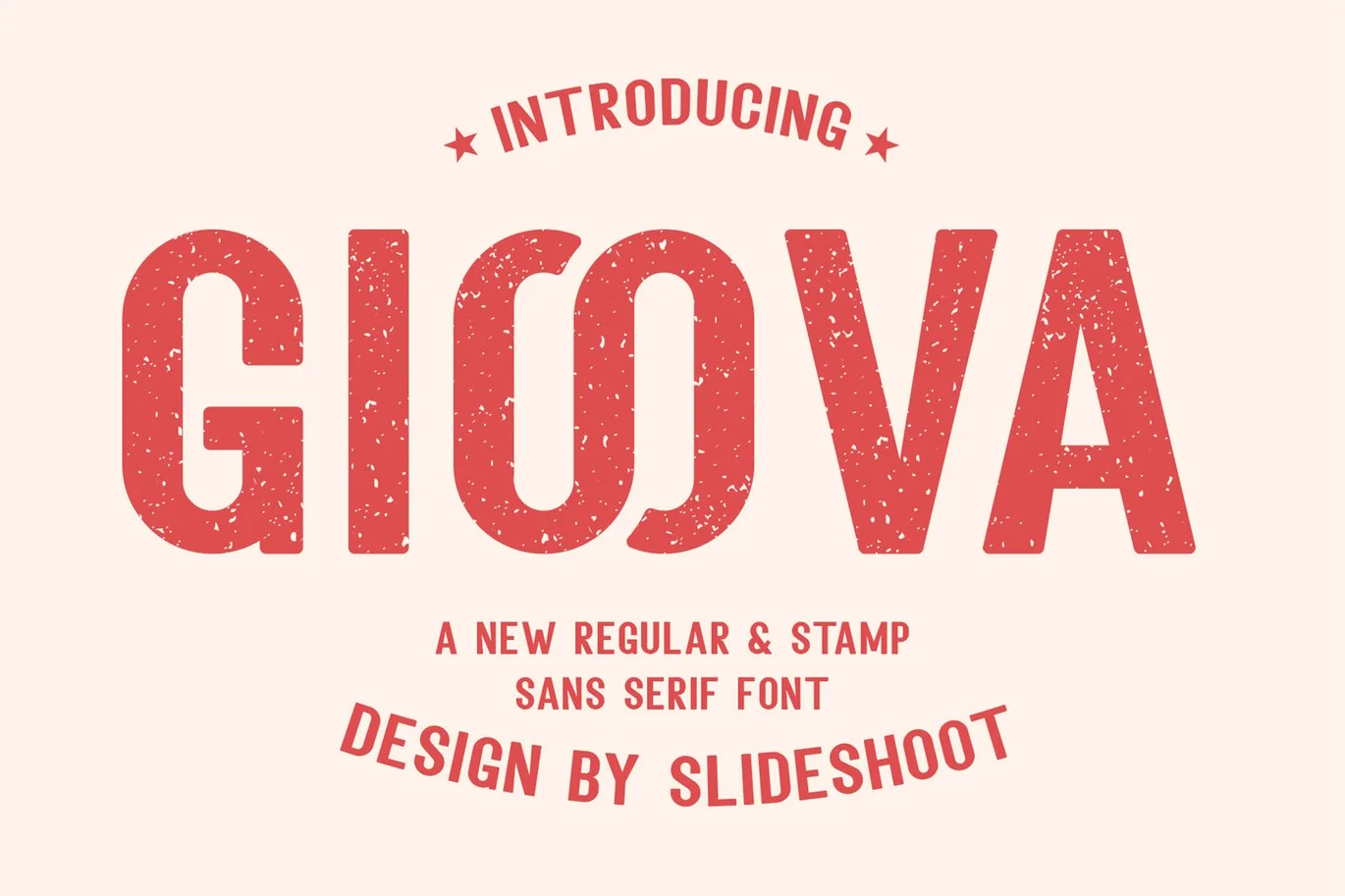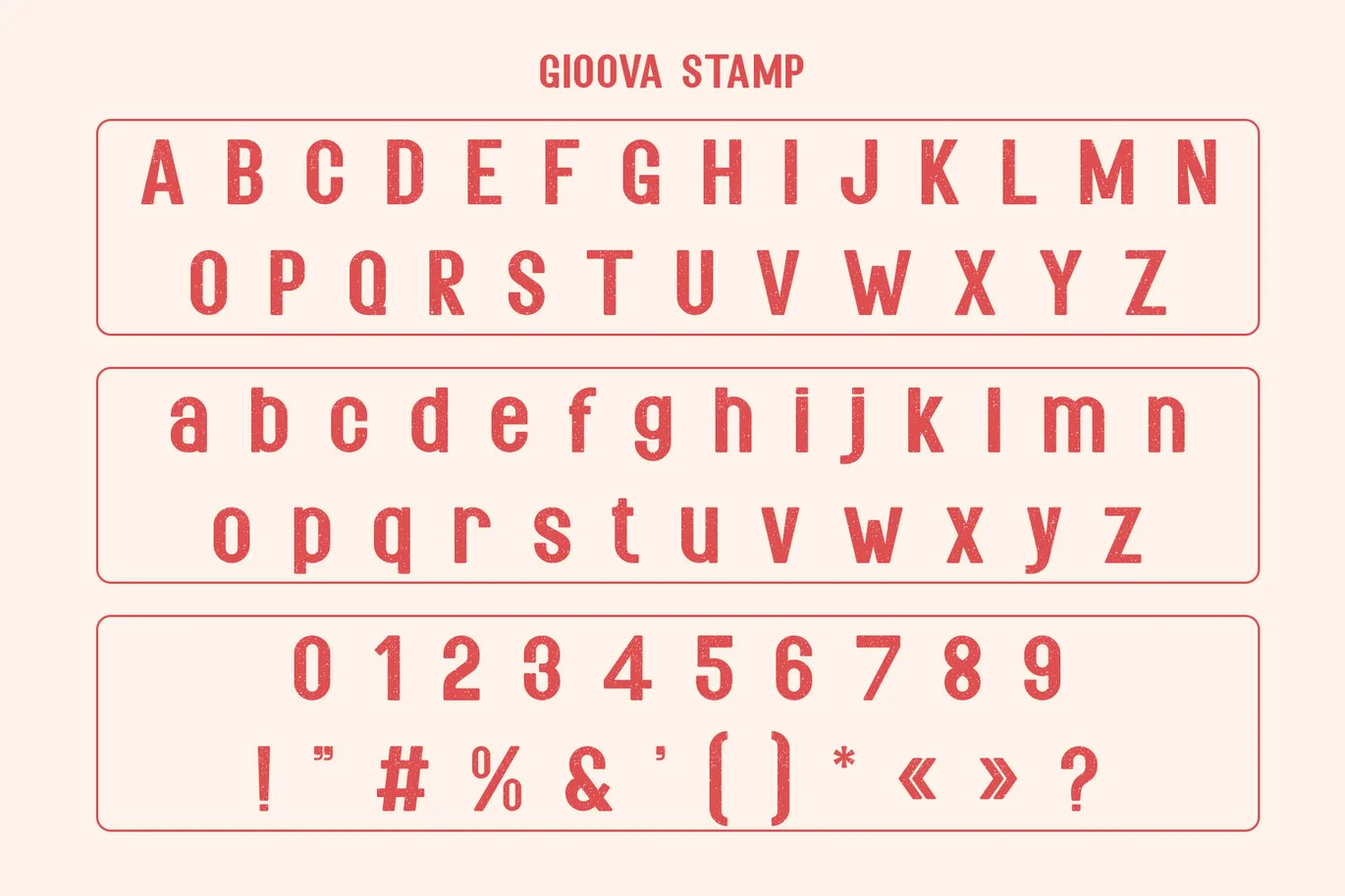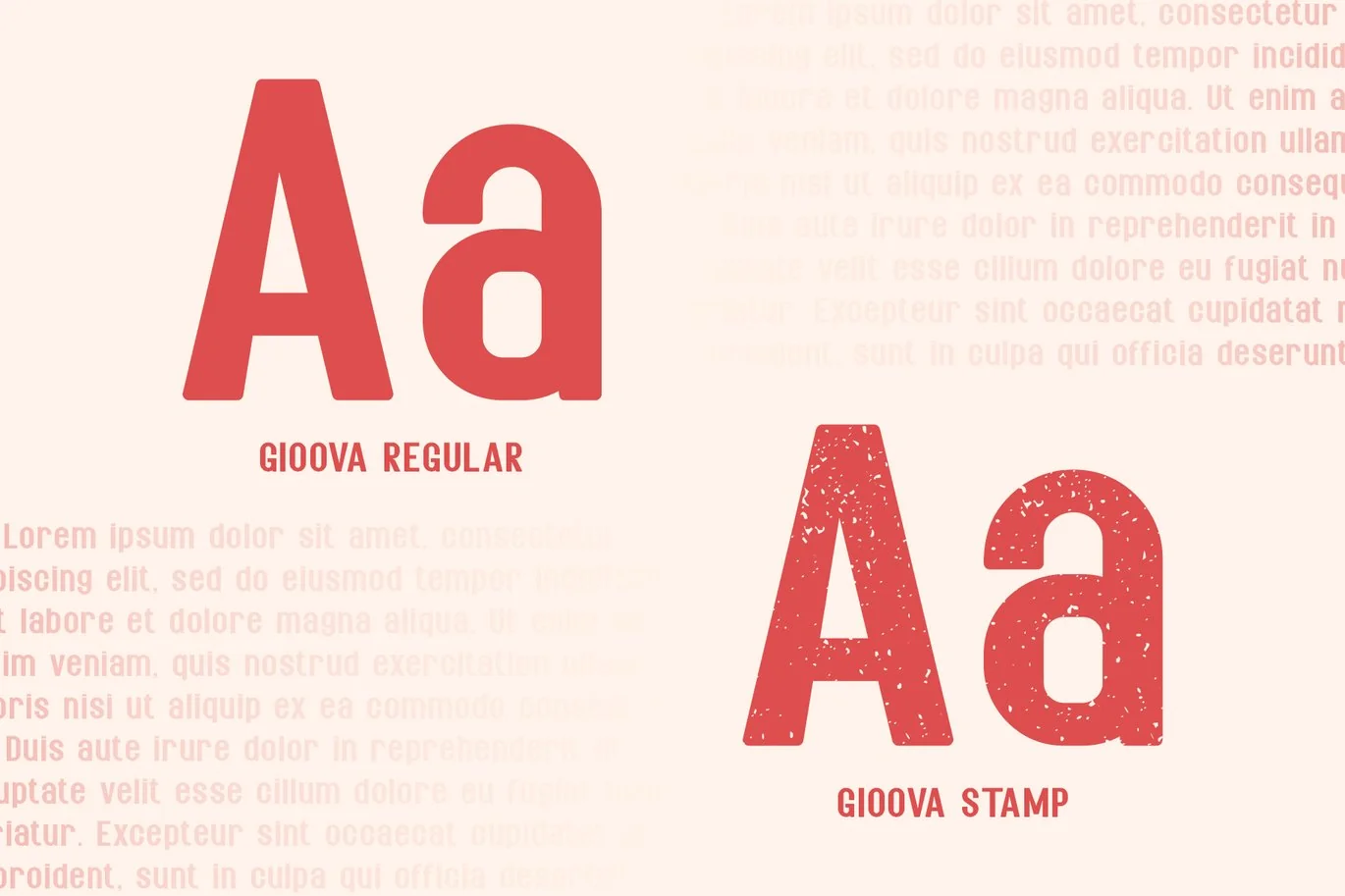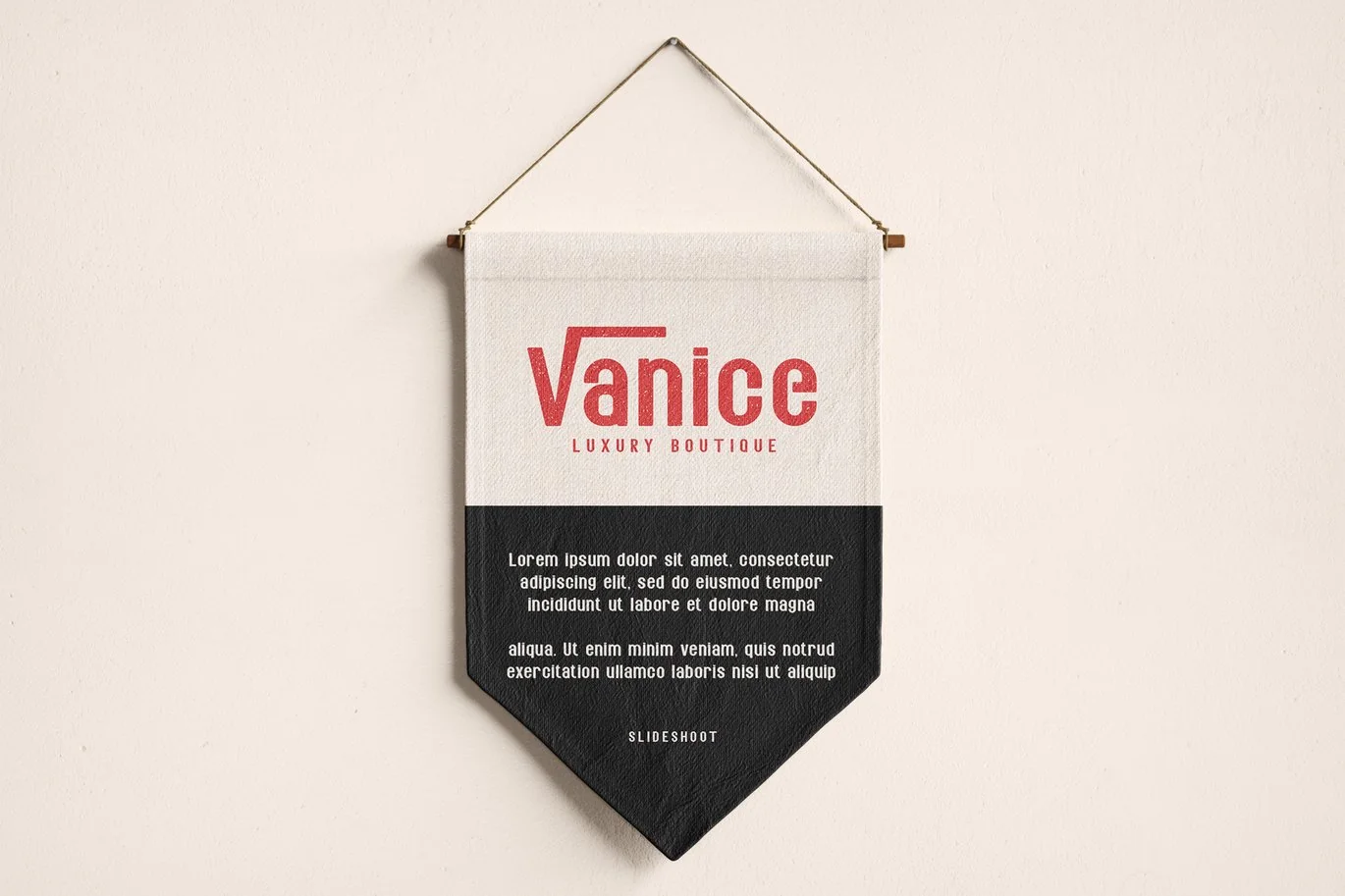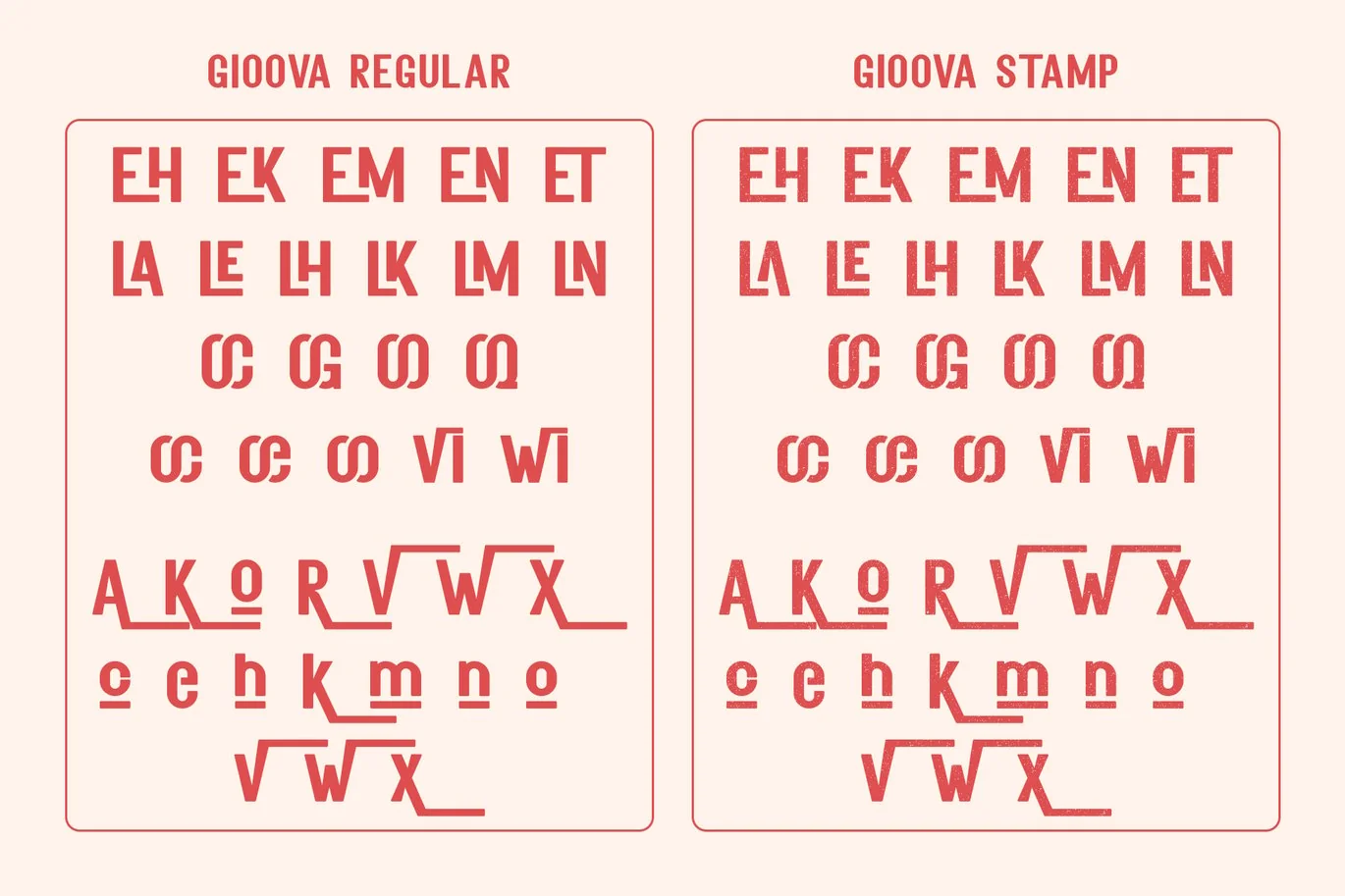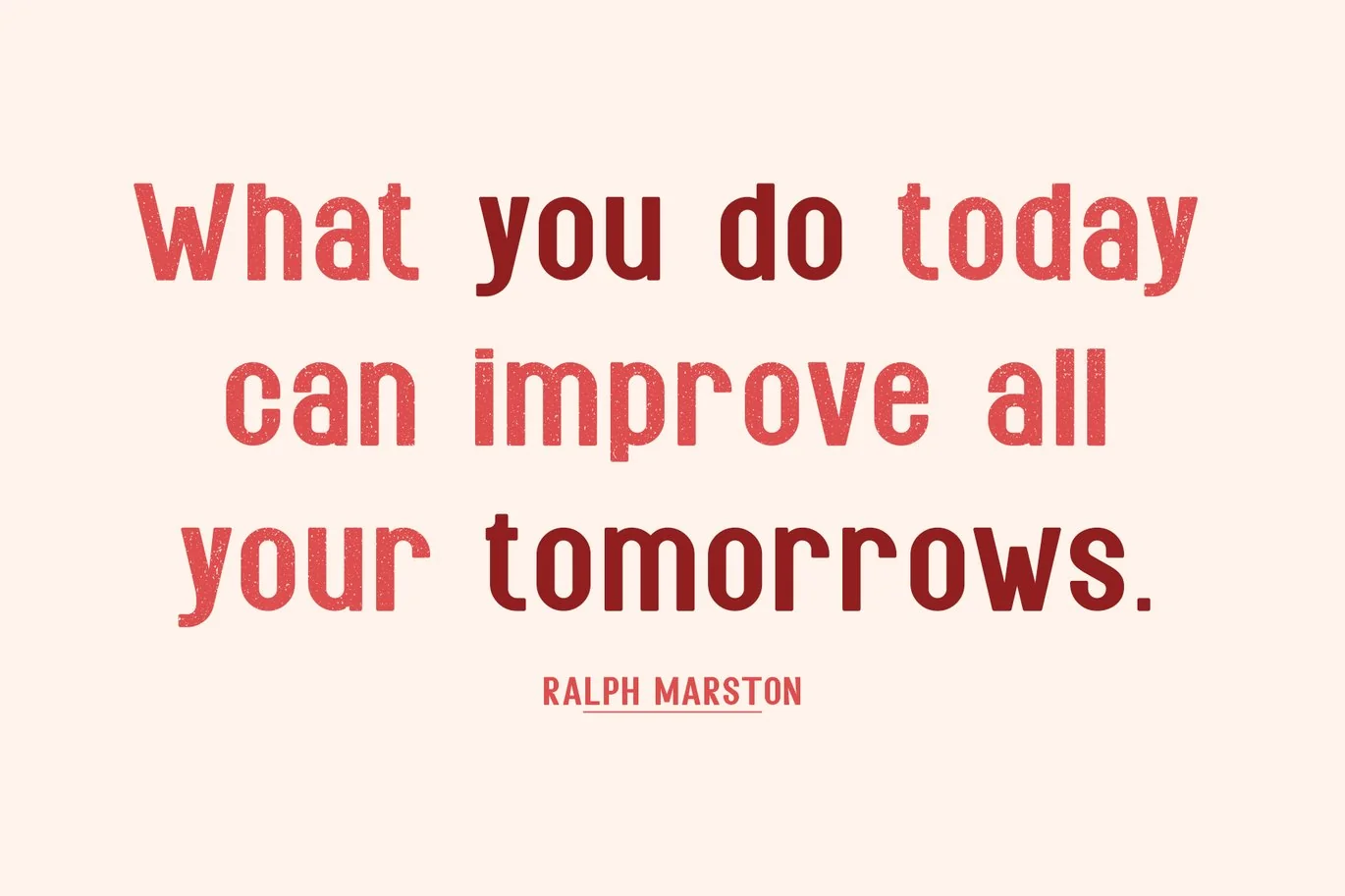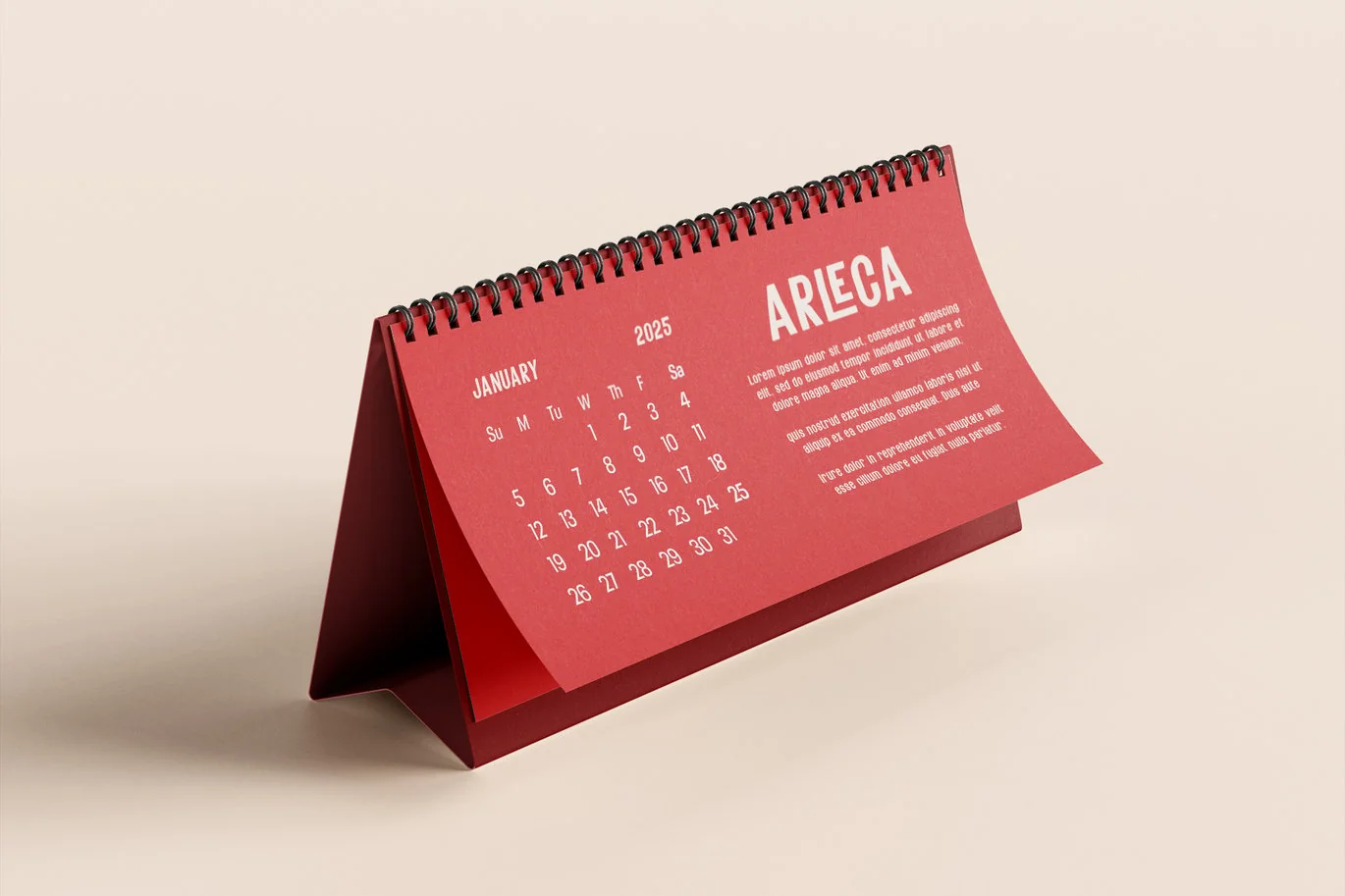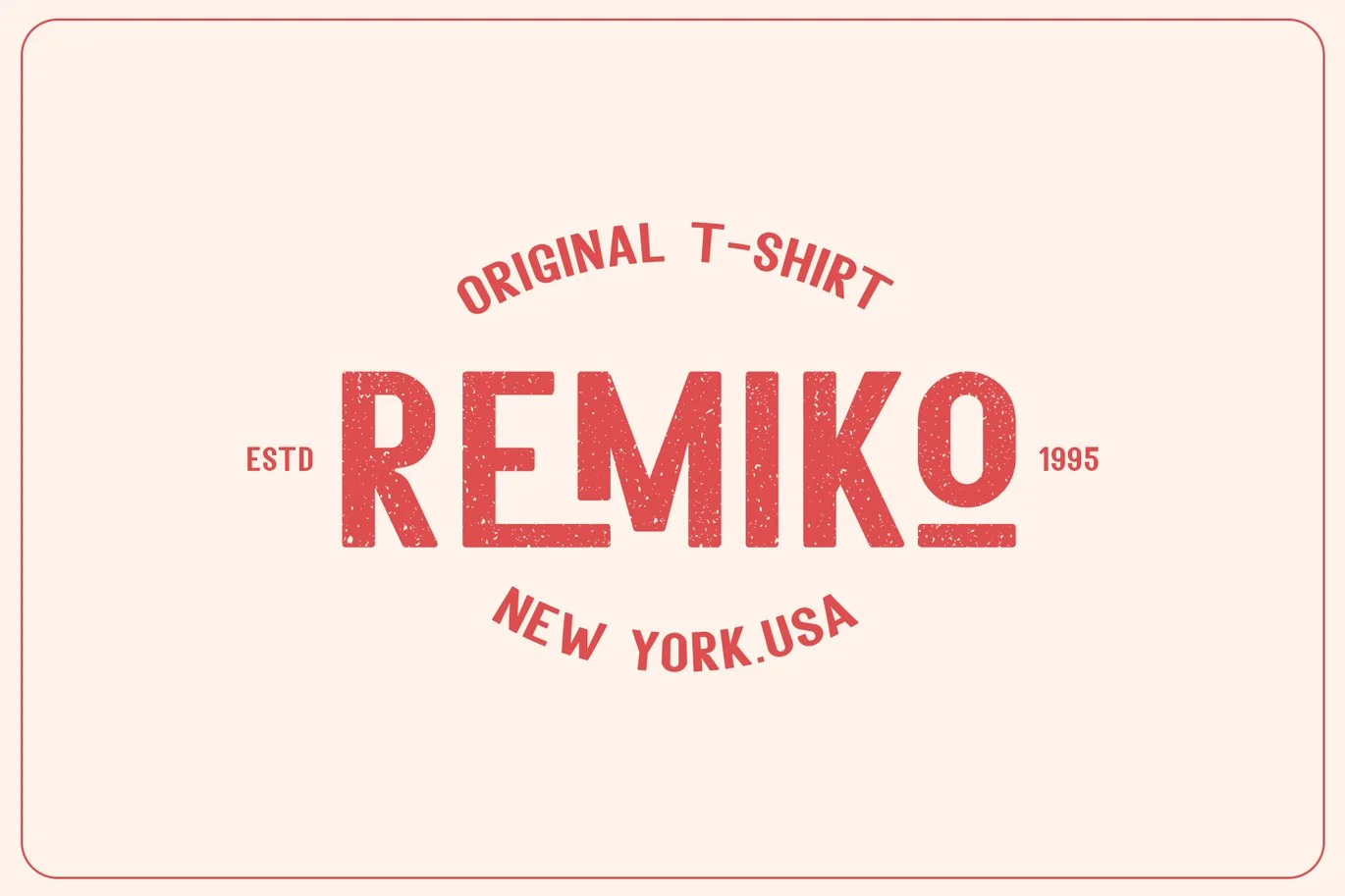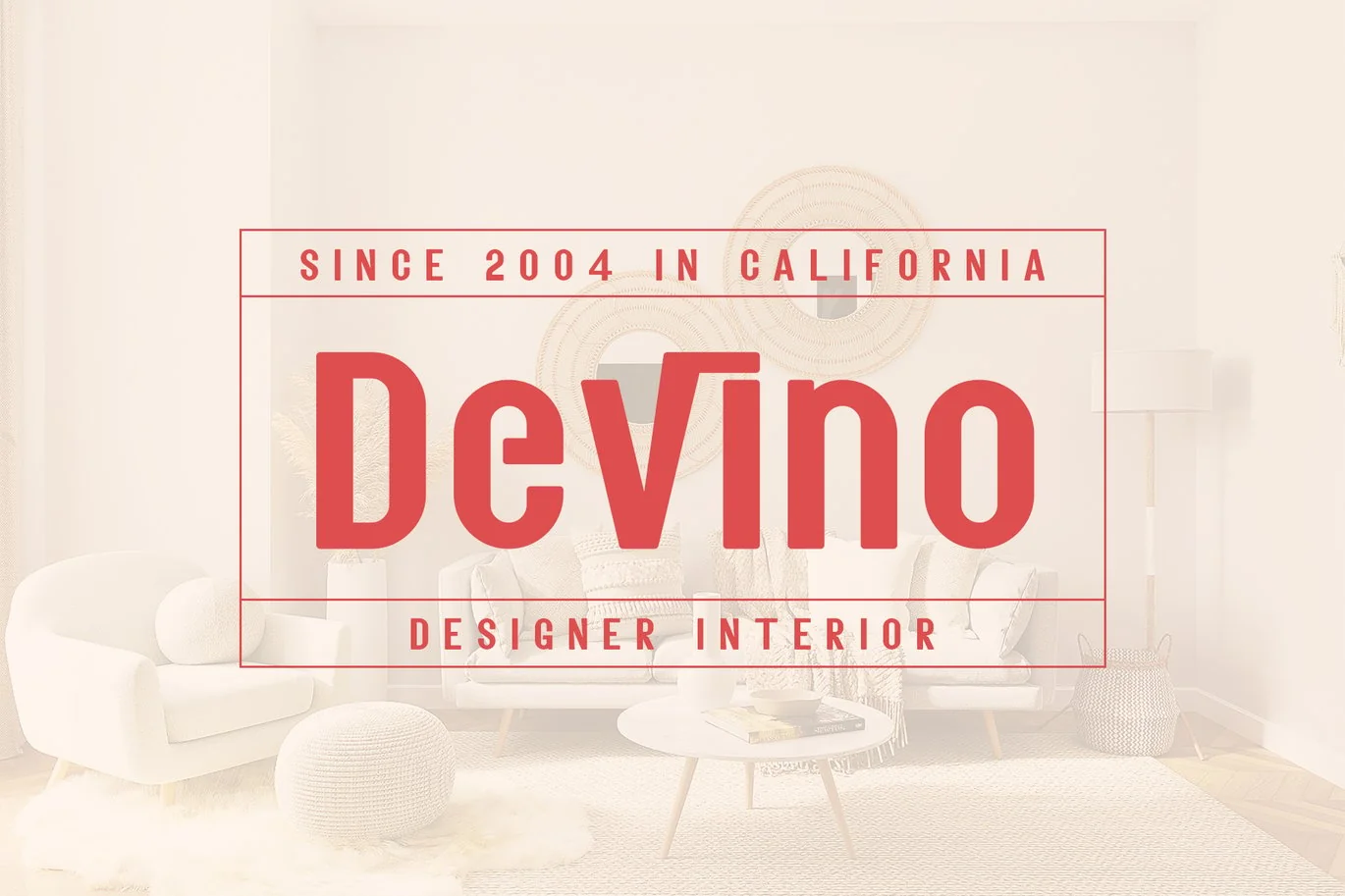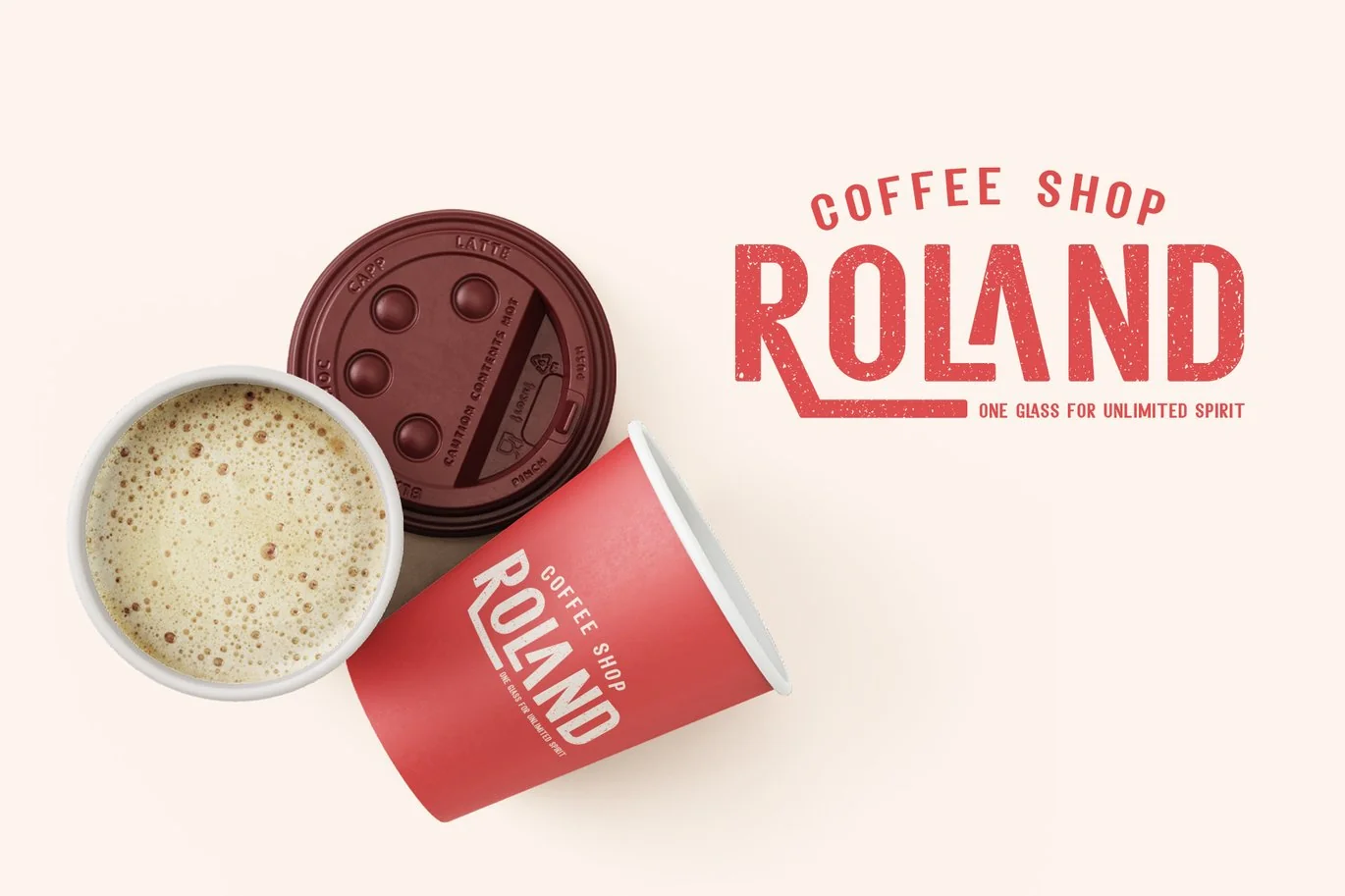
Gioova Sans Serif Font
Gioova Sans Serif is a Vintage look sans serif font. Has a vintage feel with a touch of irregular spot stamping. It is perfect for people looking for vintage aesthetics, logo types and various other designs. Gioova Sans Serif is a Vintage look sans serif font. Its stylish alternation and binding make this font the perfect partner for any project.
- Uppercase and lowercase
- Numbering and Punctuation